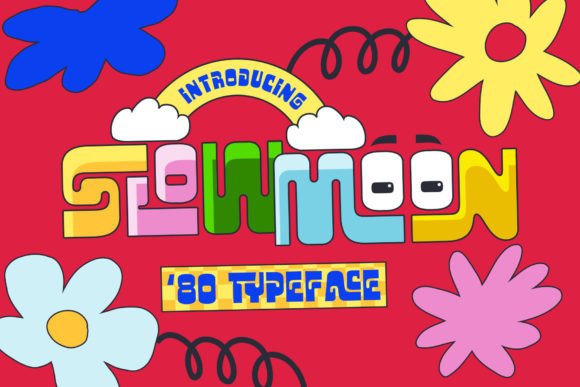
Journey Through Time with Slow Moon Font: A Timeless Display Font with Enduring Elegance
In the realm of design, where nostalgia meets modernity, there exists a font of unparalleled grace and enduring charm - Slow Moon. This exquisitely crafted display font, brought to life by the masterful Alit Design, is a testament to the enduring allure of retro aesthetics. With its meticulous attention to detail, extensive character set, and boundless creative possibilities, Slow Moon is the perfect choice for designers seeking to evoke the spirit of bygone eras in their projects.
Immerse yourself in Slow Moon's timeless retro charm, where the essence of vintage signage and typography comes alive. Its classic appeal effortlessly transports your audience to the golden days of design, conjuring feelings of nostalgia and a longing for simpler times. With Slow Moon at your disposal, you can craft vintage-inspired posters, retro-themed branding, and captivating web graphics that exude an air of sophistication and authenticity.
Unleash your creativity with Slow Moon's dynamic alternatives and ligatures - a treasure trove of design possibilities at your fingertips. These carefully designed elements allow you to create eye-catching compositions that flow seamlessly, adding a touch of handcrafted elegance to your work. Experiment with different combinations to achieve genuinely unique typography that resonates with your audience and leaves a lasting impression.
Explore the boundless versatility of Slow Moon, effortlessly transitioning from glamorous and elegant to rugged and bold, depending on your creative vision. Whether you're crafting wedding invitations, vintage-inspired logos, retro packaging, or captivating social media graphics, Slow Moon adapts seamlessly to suit your design needs. Its extensive character set, including PUA Unicode encoding, ensures smooth integration into your creative workflow, making it the perfect choice for designers of all skill levels.
Indulge in the allure of Slow Moon and elevate your designs to new heights. Its exquisite blend of retro charm, dynamic alternatives, ligatures, and extensive character set empowers you to create typography that stands the test of time. Whether you're a seasoned designer or just starting your creative journey, Slow Moon is your trusted partner in delivering unique and unforgettable designs. Embrace the timeless elegance of Slow Moon and let your creativity flourish.